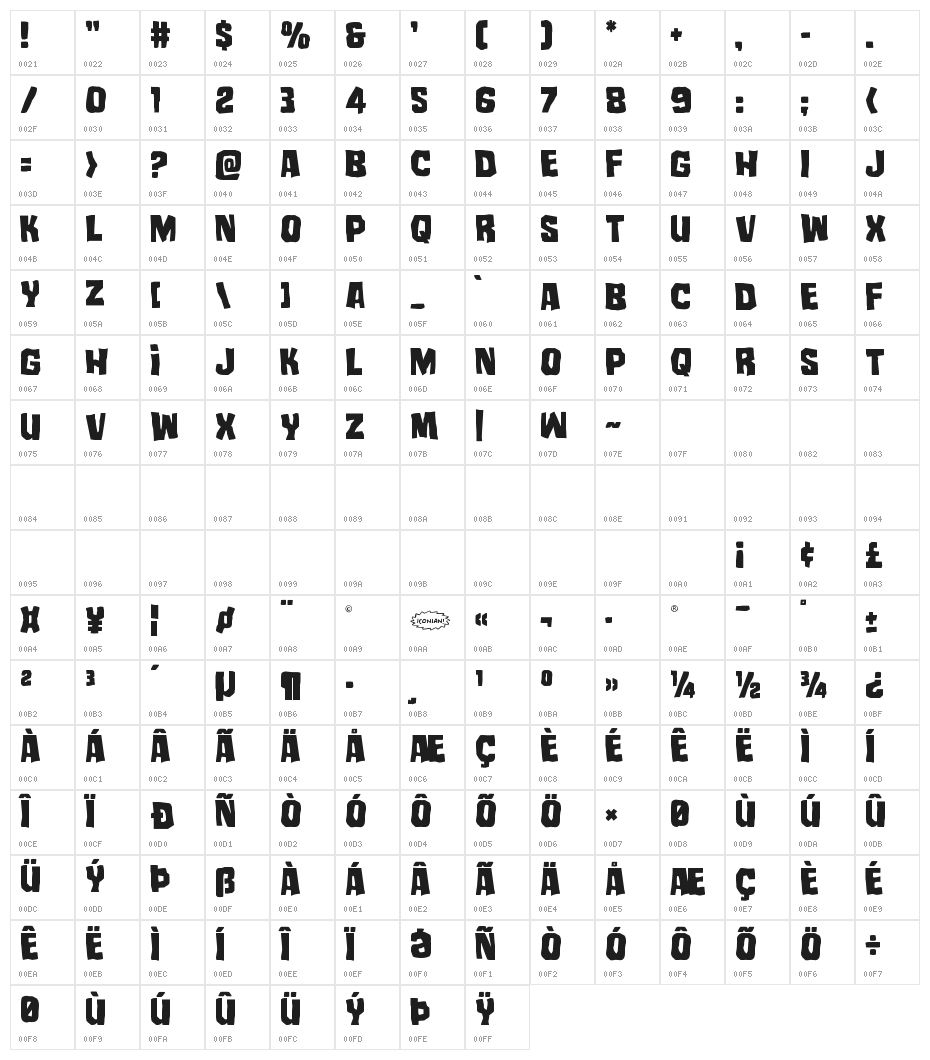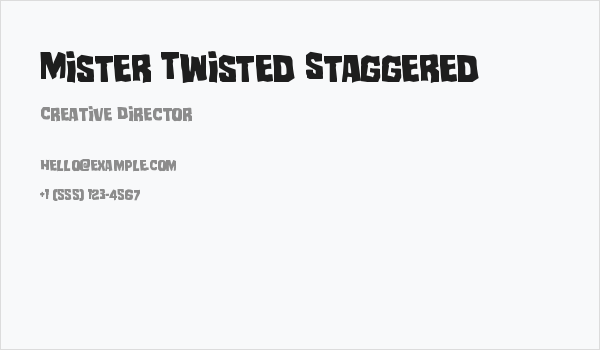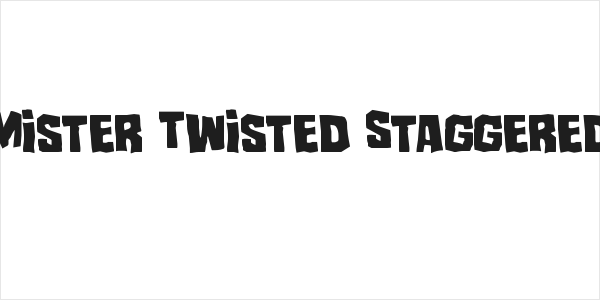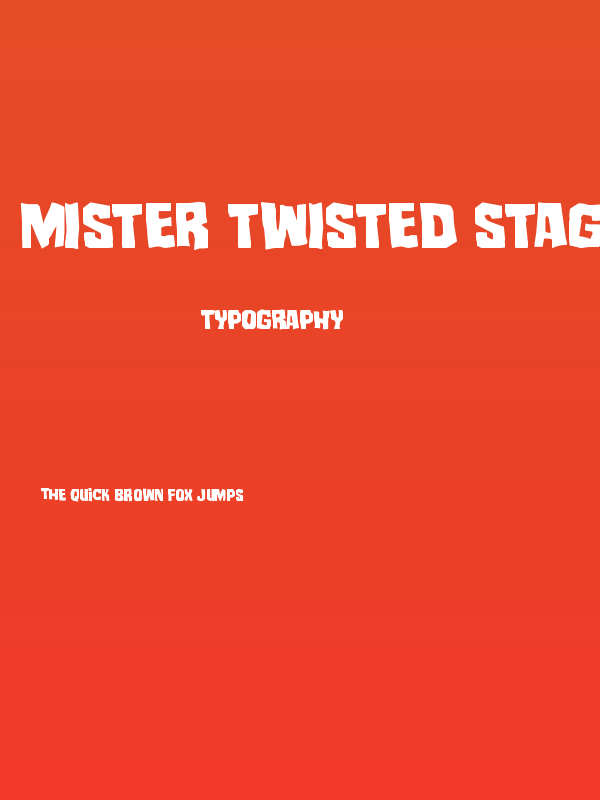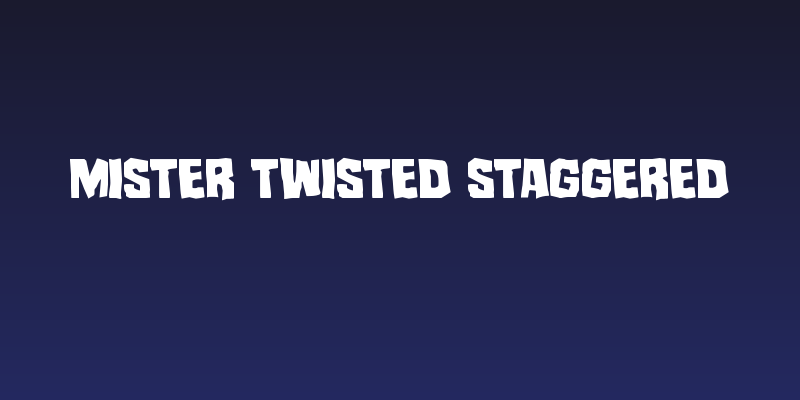
Mister Twisted Staggered Font
Mister Twisted Staggered Description
This font features a bold and playful design with a staggered, twisted appearance. Each character is uniquely distorted, giving the font a dynamic and energetic feel. The irregular shapes and varying angles create a sense of movement and spontaneity, making it stand out in any design. The uppercase and lowercase letters maintain a consistent style, while the numbers and special characters complement the overall aesthetic. This font is perfect for projects that require a fun and eye-catching look.
| Proposed Projects | Ideal for posters, event flyers, children's book covers, and any creative project that needs a lively and unconventional typeface. |